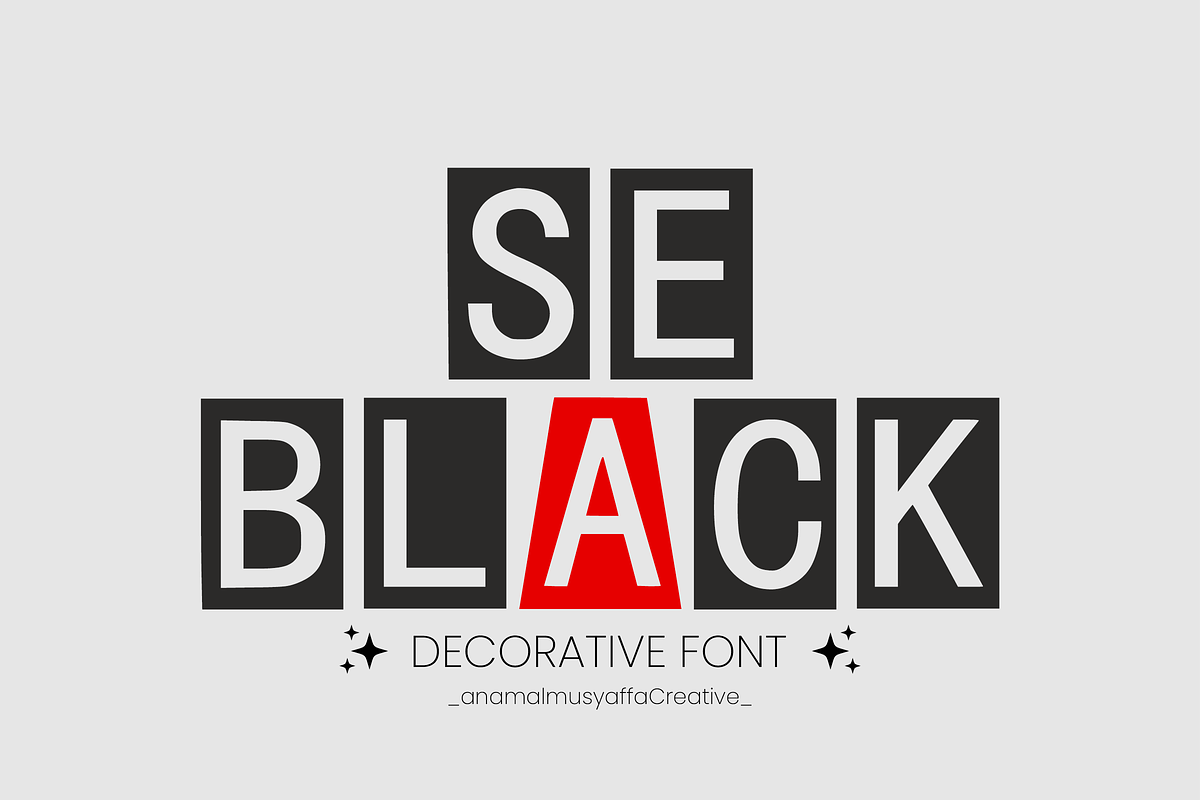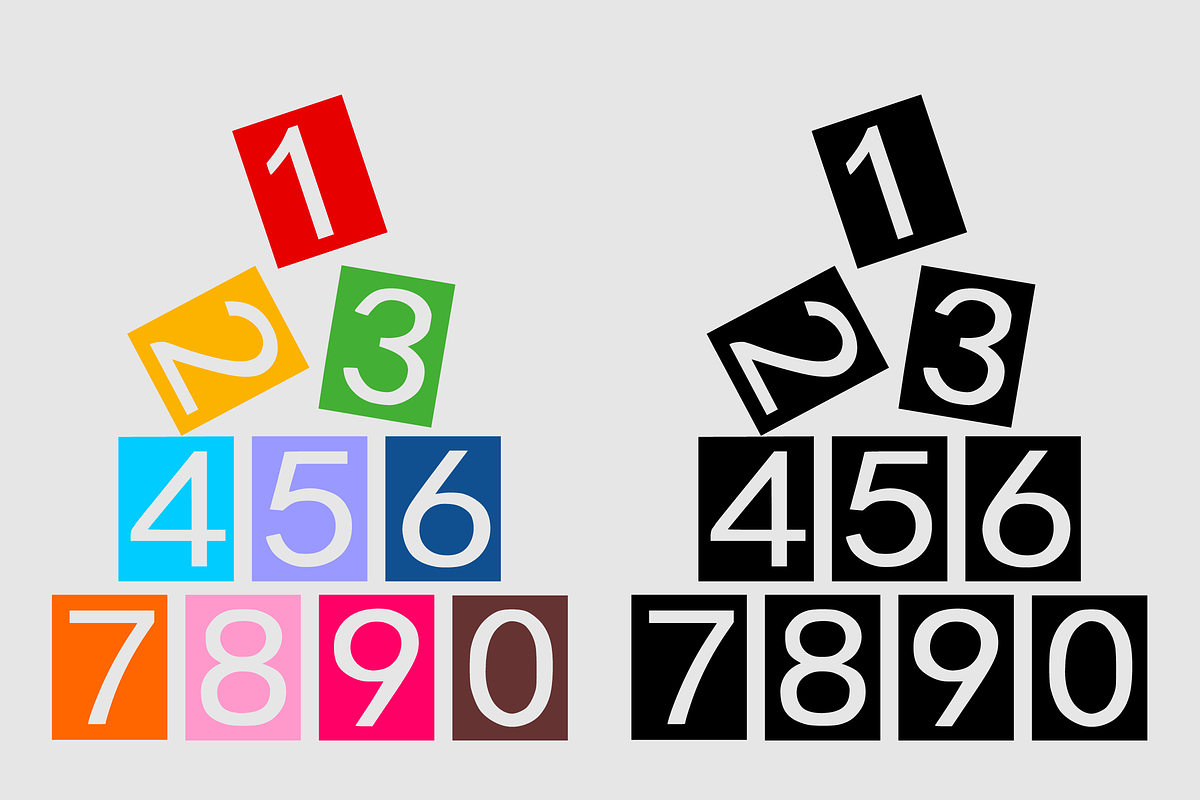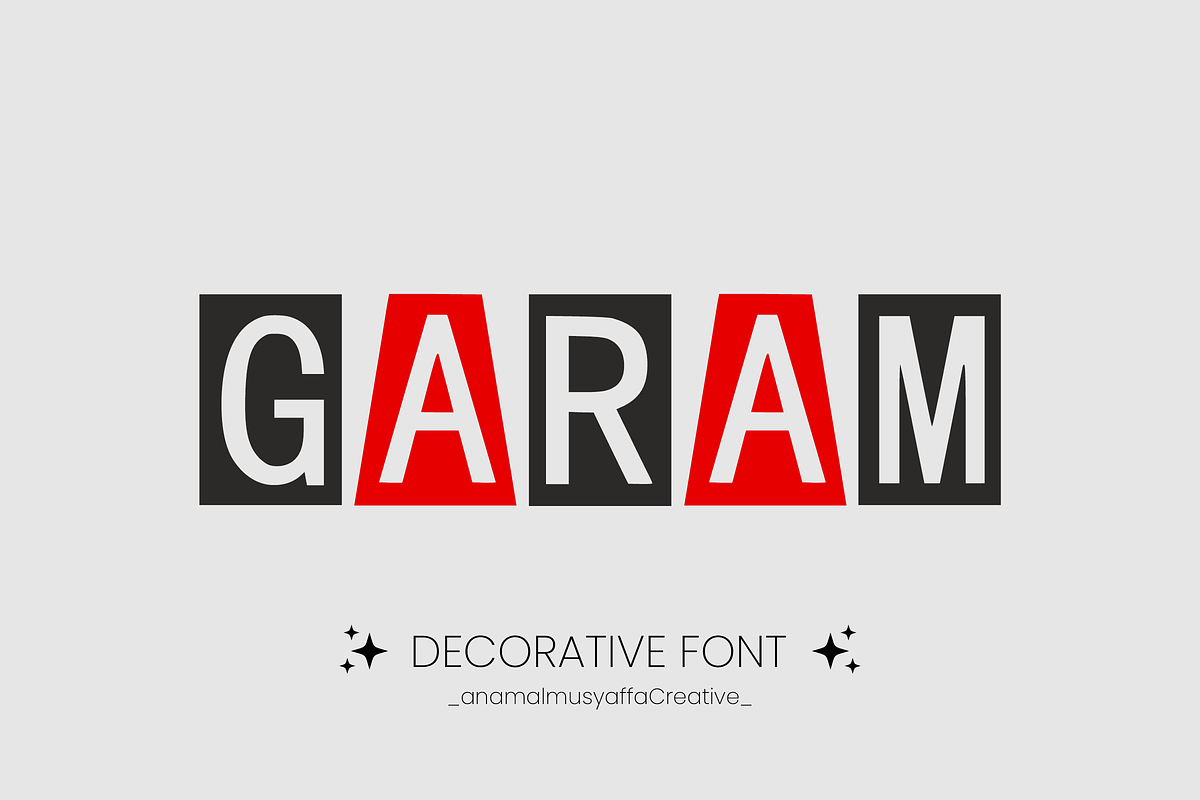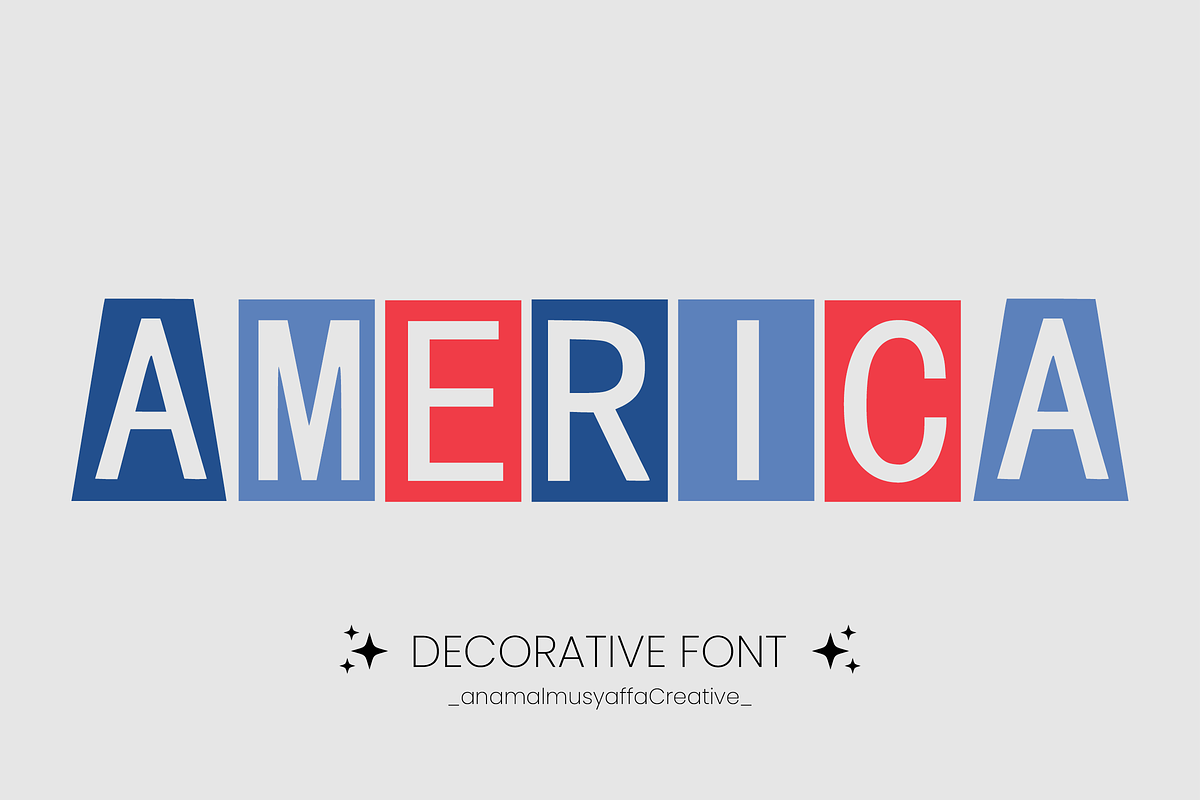
Decorative Title Font Types
Welcome to the captivating world of “SeBlackr,” a typeface that combines geometric precision with distinct versatility. Perfectly square, each character of this font captures attention and underlines importance, making “SeBlackr” ideally suited for head-turning titles and headlines. Its clean lines and neat angles shine in sublimation printing, lending a polished touch to mugs and other print mediums. Flip through a comic book, and you’ll see it come alive in dialogue bubbles bursting with energy. In the corporate realm, it stands out as an icon of efficiency and professionalism. “SeBlackr” – where square is the new circle in the design universe. Experience the many possibilities with this unique font today.